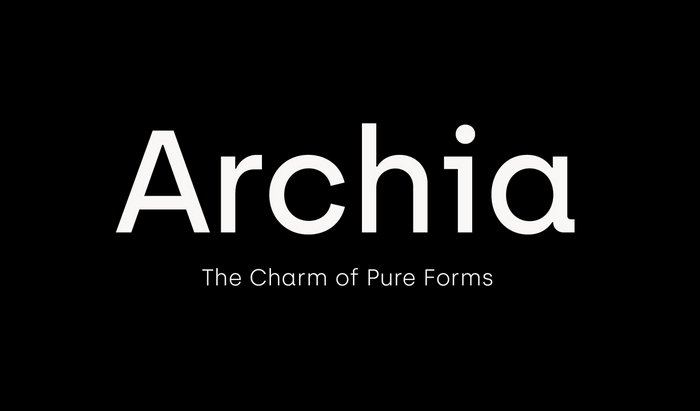
Archia Font Family
Introducing Archia Font Family! Archia designed by atipo ®. A designer from Gijón / Xixón, Spain. Archia is a sans serif typeface based on geometric shapes and “tech” approach. The result is a modern and unorthodox font family that is ideally suited for logotypes, branding, editorial design as well as web and screen design. Archia is available in six weights: thin, light, regular, medium, semibold and bold.